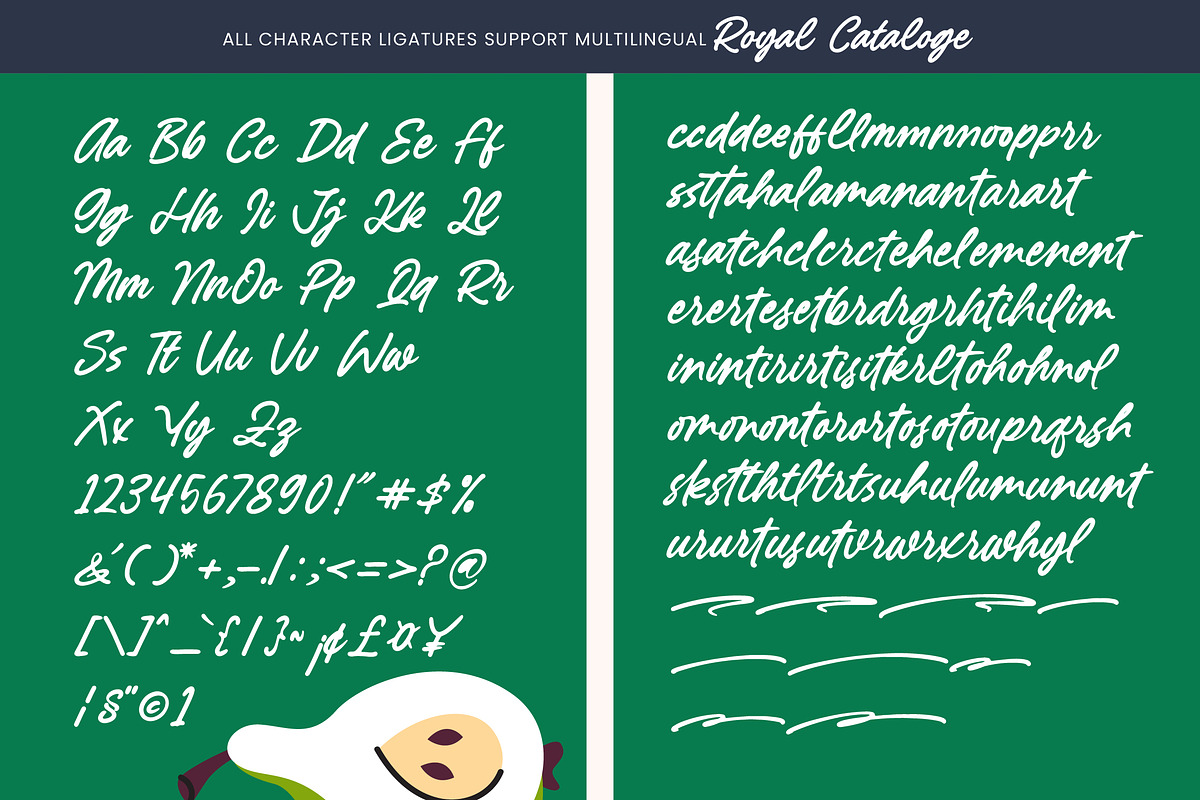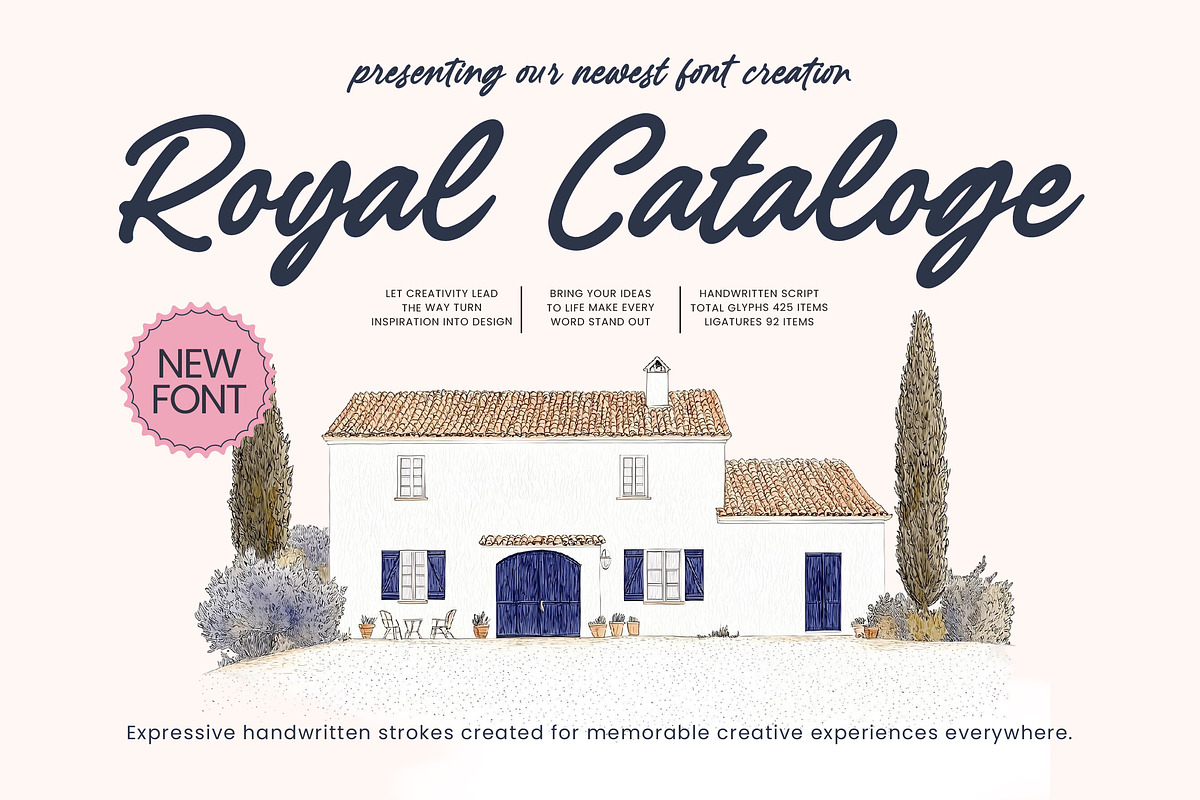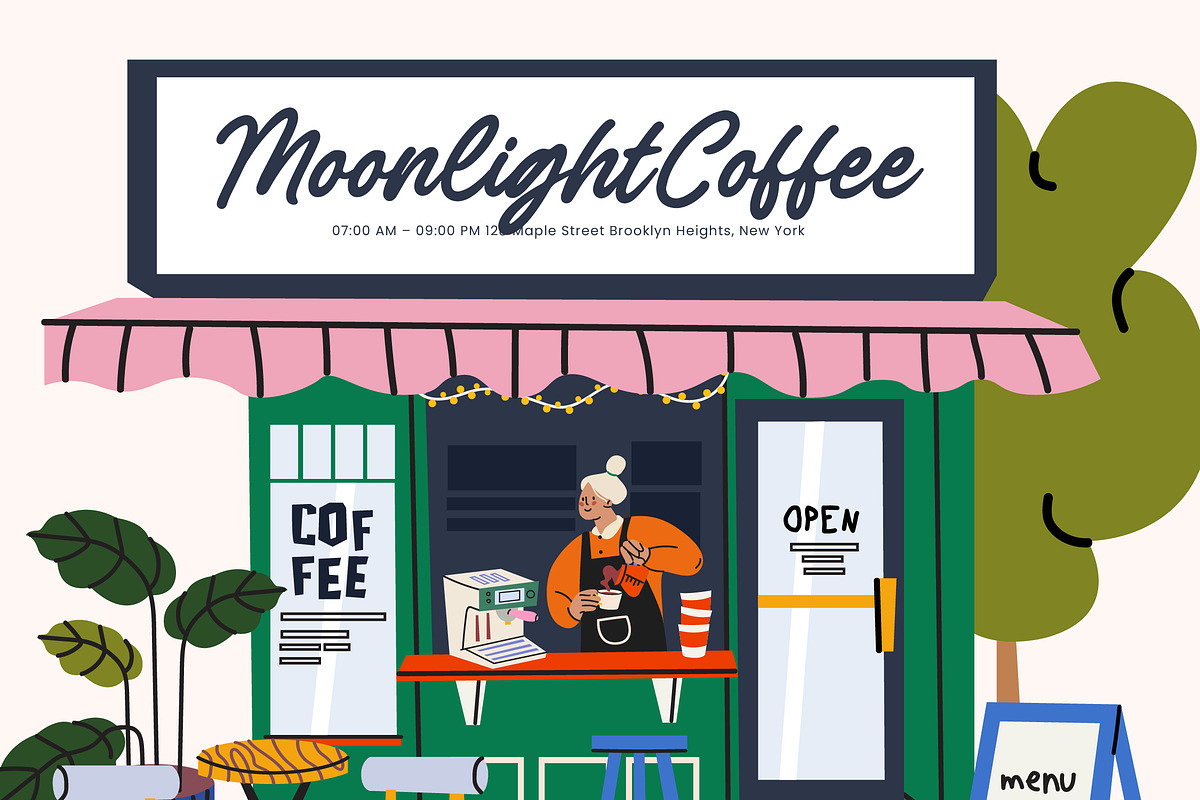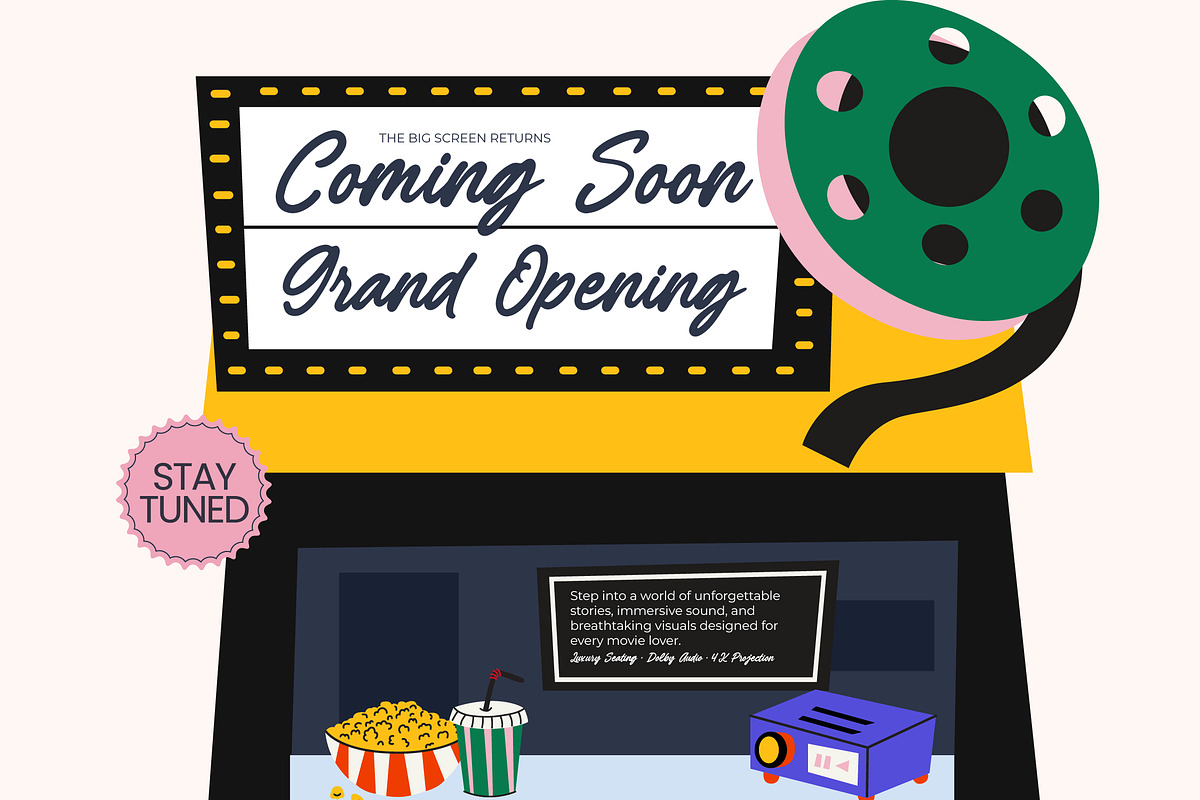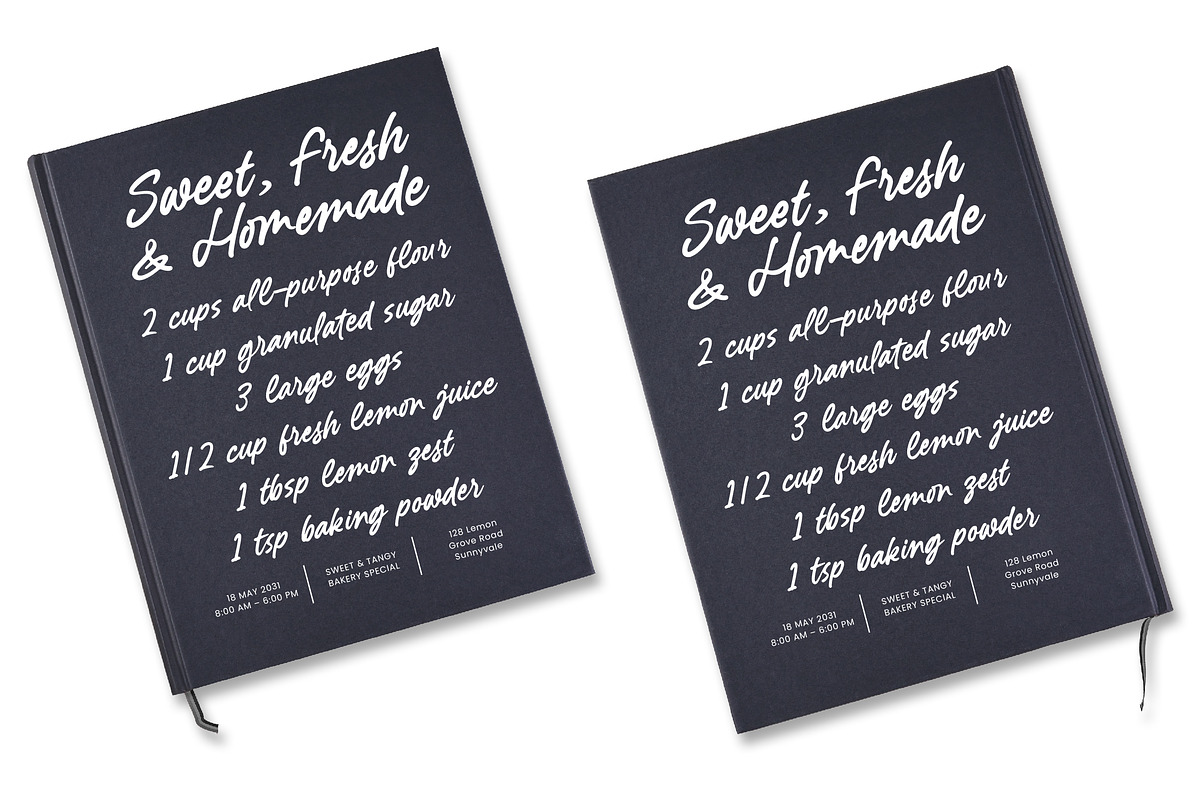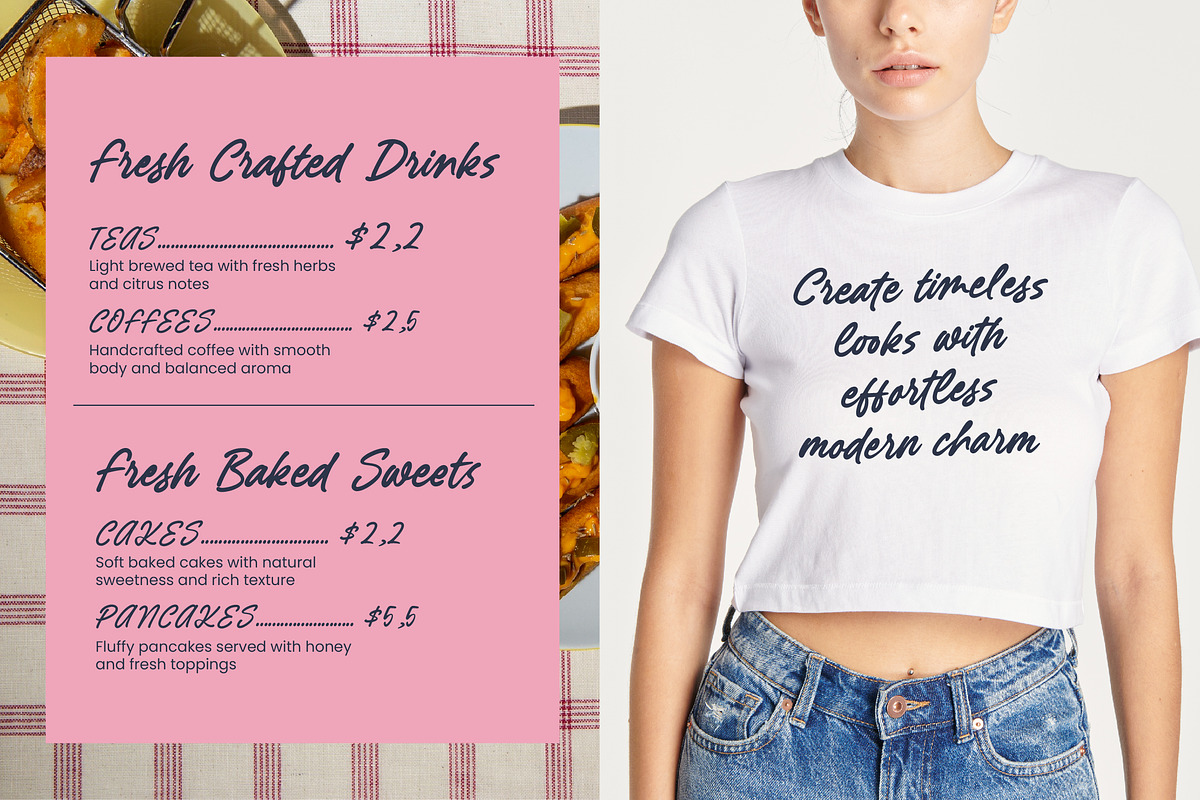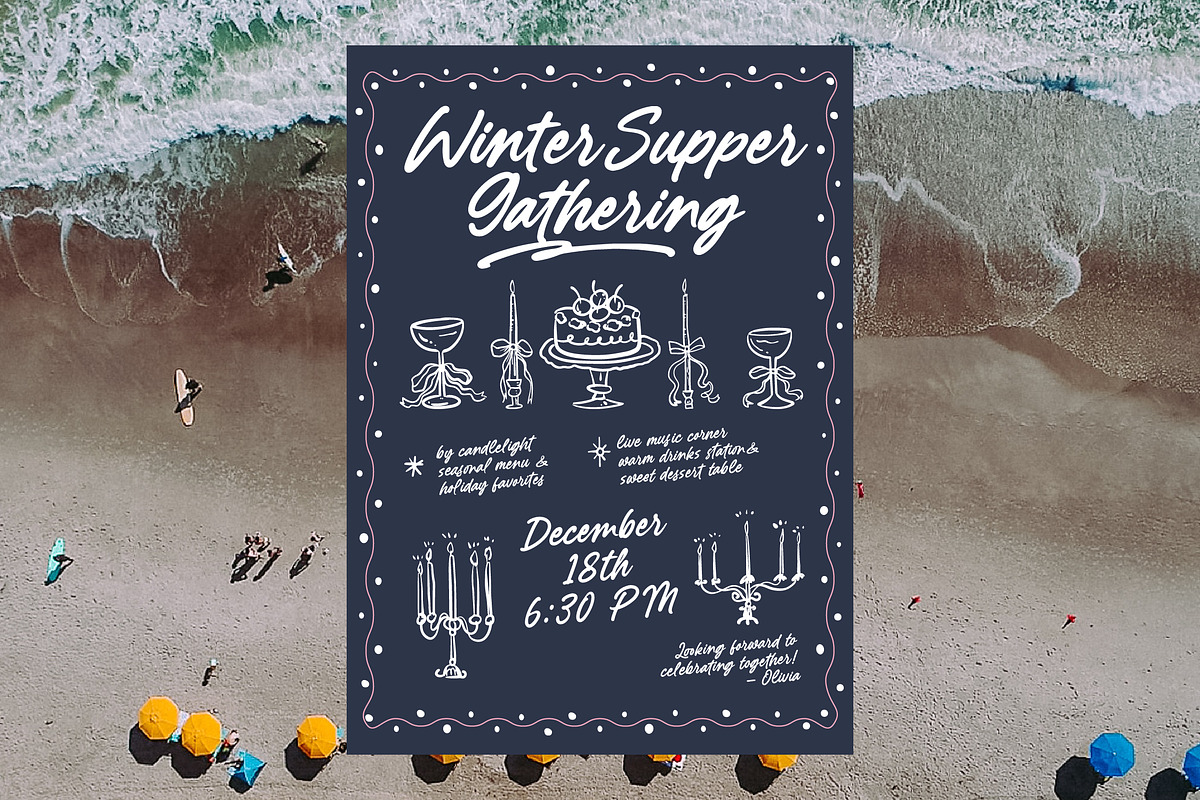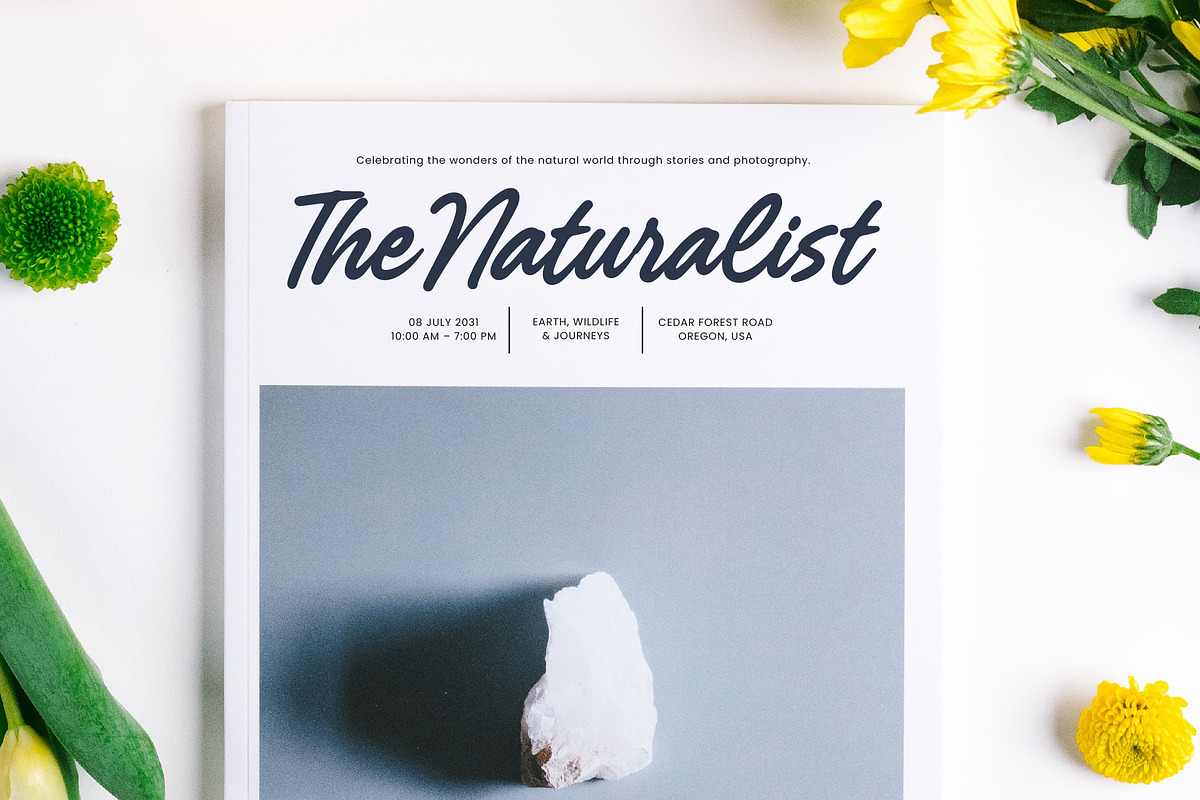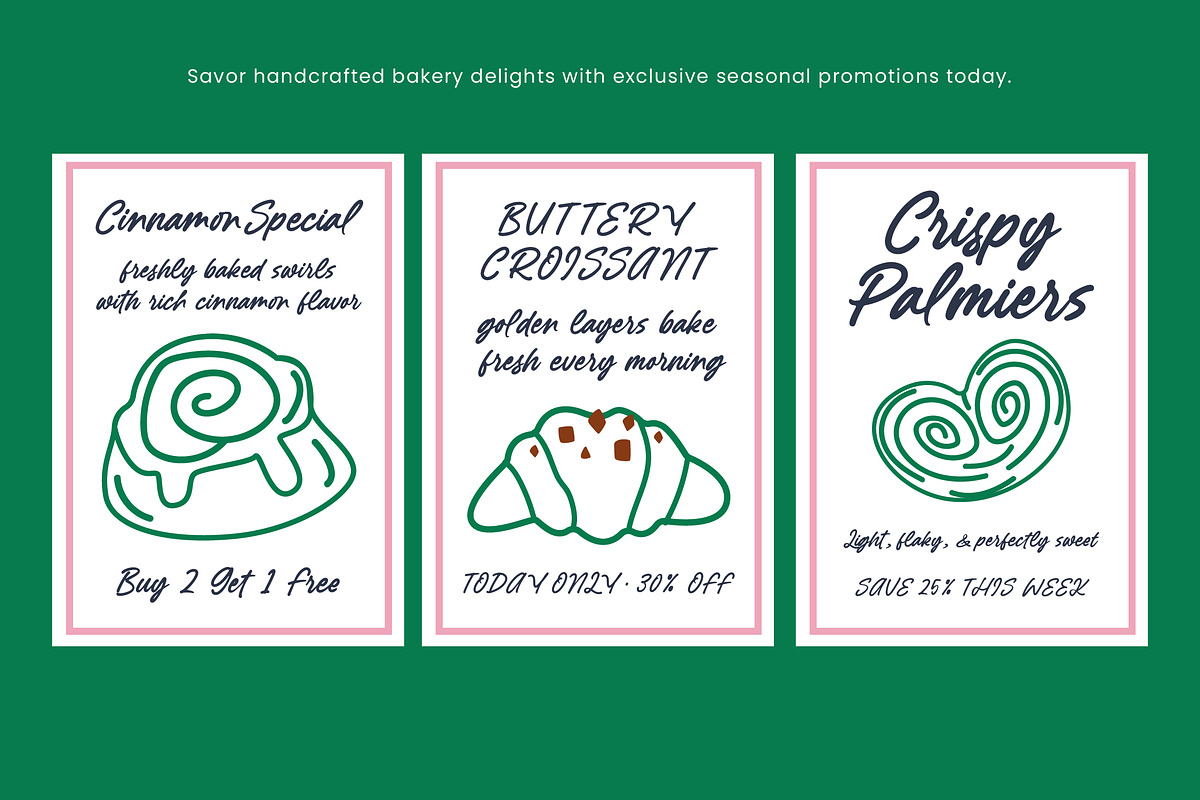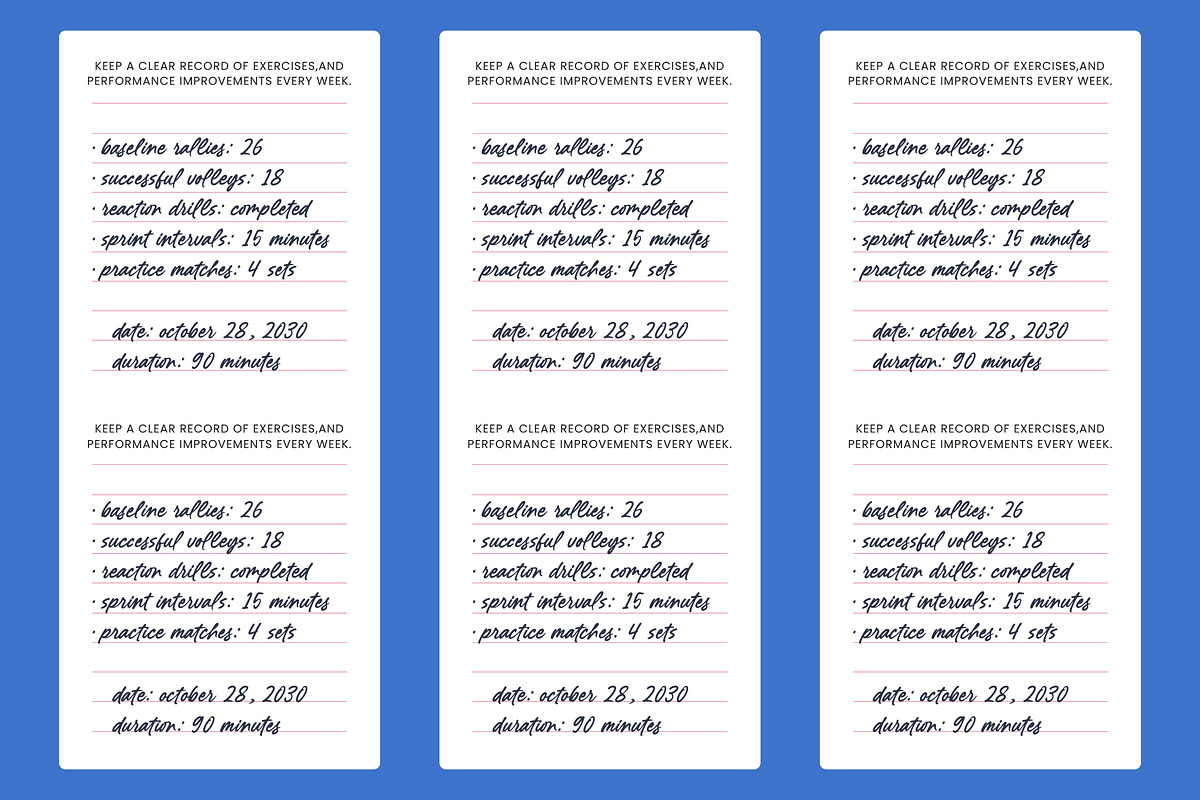
Royal Cataloge Handwritten Script
Royal Cataloge - Handwritten Script
Elevate your design projects with the refined charm of Royal Cataloge - Handwritten Script, a typeface designed to capture the essence of authentic hand-lettering. Featuring expressive handwritten strokes and a fluid rhythm, this font brings a sophisticated personality to every layout. Its bold, brush-like texture ensures that your headlines command attention while maintaining a warm and approachable feel for contemporary design needs.
Perfect for those seeking to establish a distinctive visual identity, Royal Cataloge - Handwritten Script is the ideal choice for luxury branding, high-end packaging, and editorial design. Whether you are crafting premium logos, bespoke wedding invitations, or stylized social media content, this script provides the perfect balance of artistic flair and professional readability. It is specifically curated for projects that require a handcrafted aesthetic with a high-end finish.
Reach a global audience with ease thanks to the comprehensive glyph set and dynamic OpenType features included in this collection. With its extensive multilingual support, Royal Cataloge - Handwritten Script adapts seamlessly across global markets, making it incredibly versatile for international projects. The addition of 92 unique ligatures ensures that the text flows naturally, mimicking the nuances of real handwriting to provide a truly bespoke experience for users worldwide.
Invest in a high-performance typographic solution that promises to turn every design into a memorable creative experience. The bold visual weight and rhythmic motion of Royal Cataloge - Handwritten Script make it a versatile asset for any modern designer’s toolkit. Elevate your portfolio and deliver unmatched visual impact by integrating this premium script font into your next commercial project.